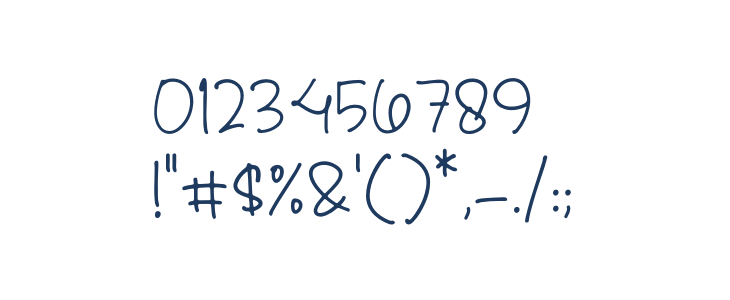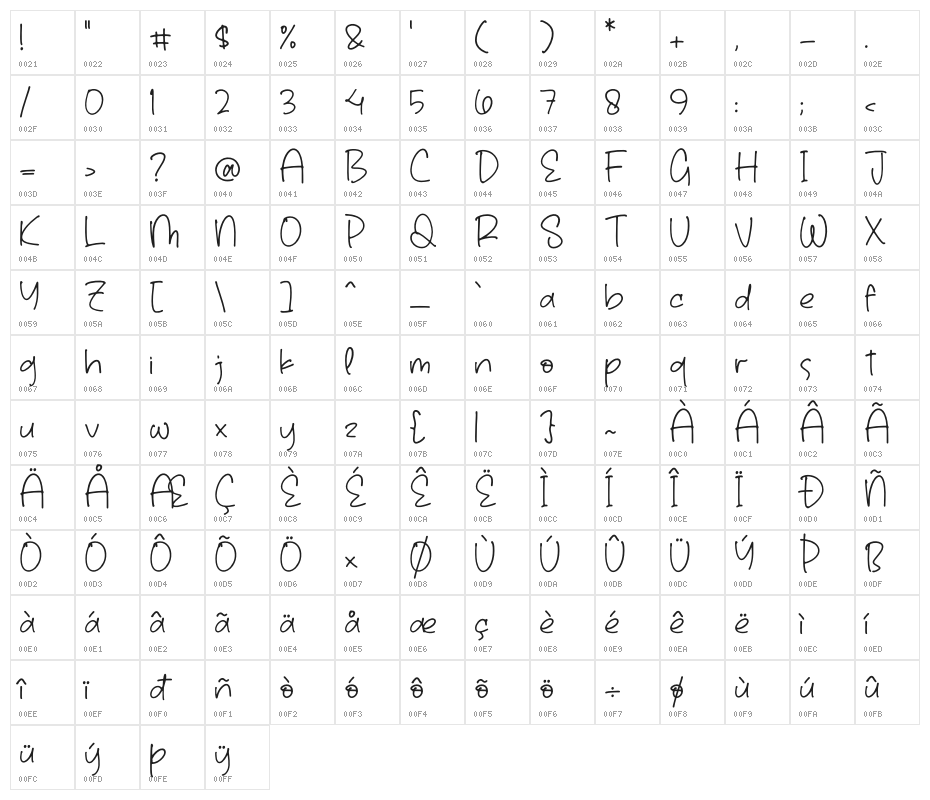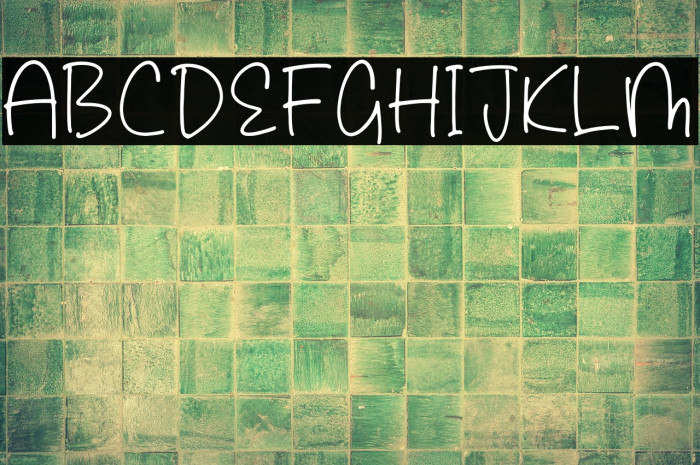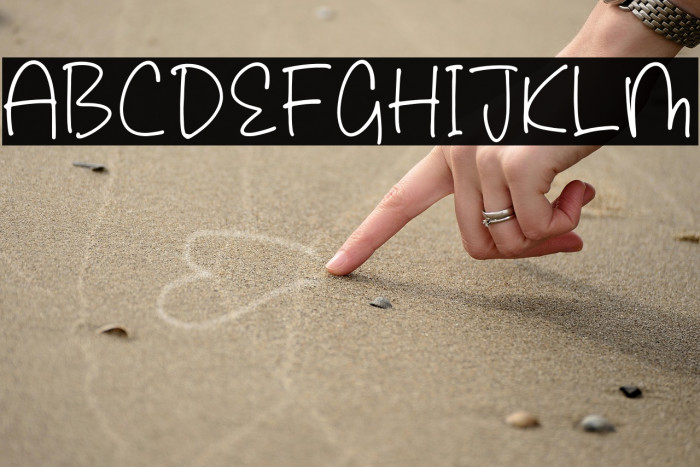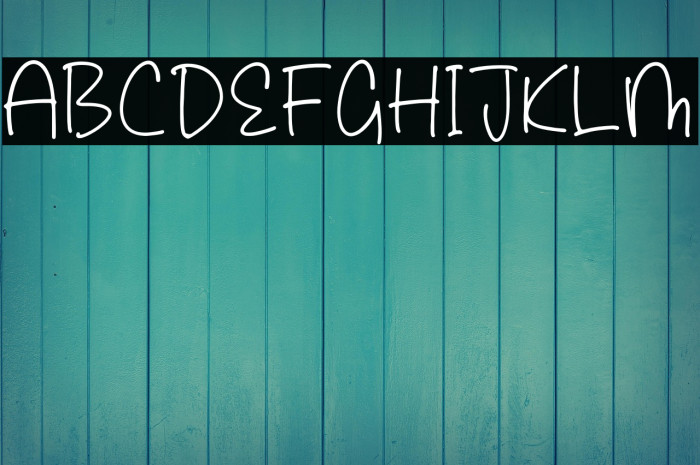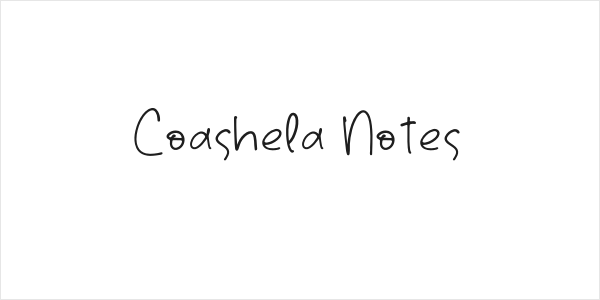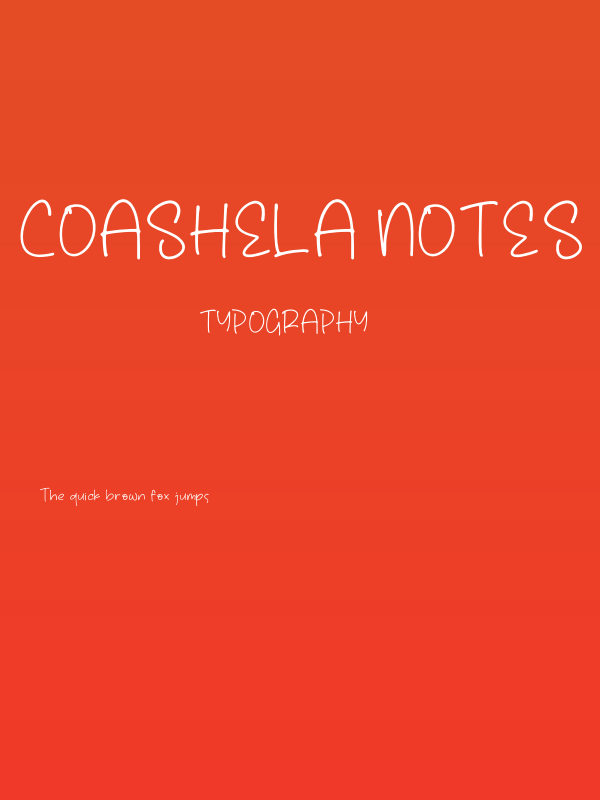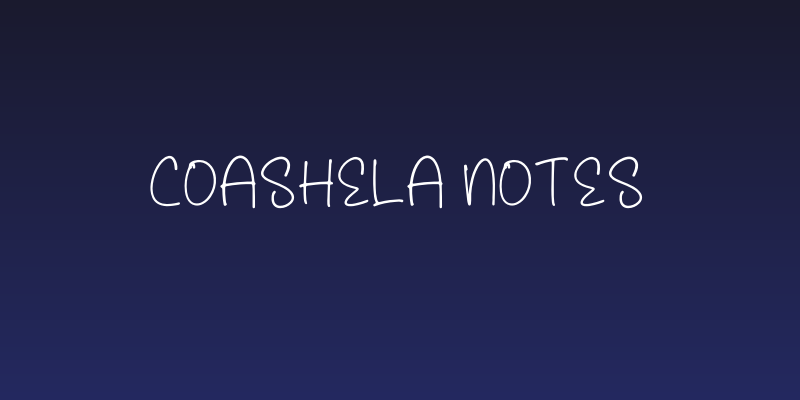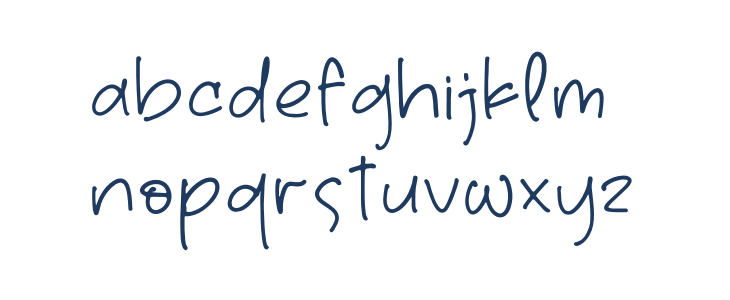
Coashela Notes Font
Coashela Notes Description
This playful and casual font features a handwritten style that exudes a sense of informality and friendliness. The characters are slightly irregular, adding to the organic and natural feel of the typeface. The uppercase and lowercase letters are well-balanced, with a consistent stroke width that maintains readability. The numerals and special characters complement the overall style, ensuring versatility in various design contexts. Its unique charm makes it suitable for projects that require a personal touch, such as invitations, greeting cards, or creative branding. The font's simplicity and ease of reading make it accessible while still offering a distinctive aesthetic.
| Proposed Projects | Ideal for invitations, greeting cards, creative branding, and personal projects. |